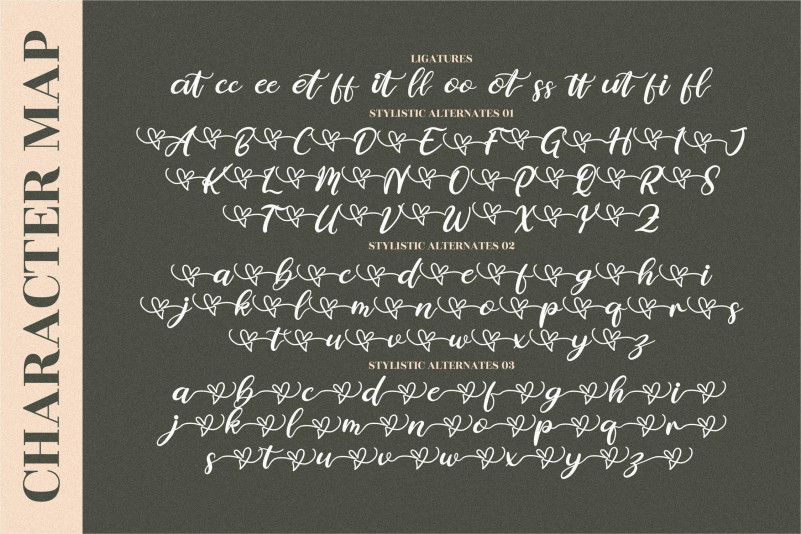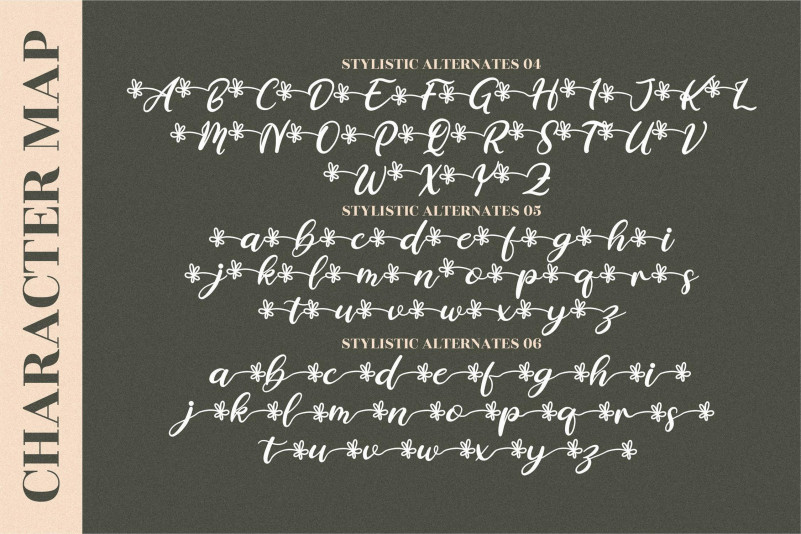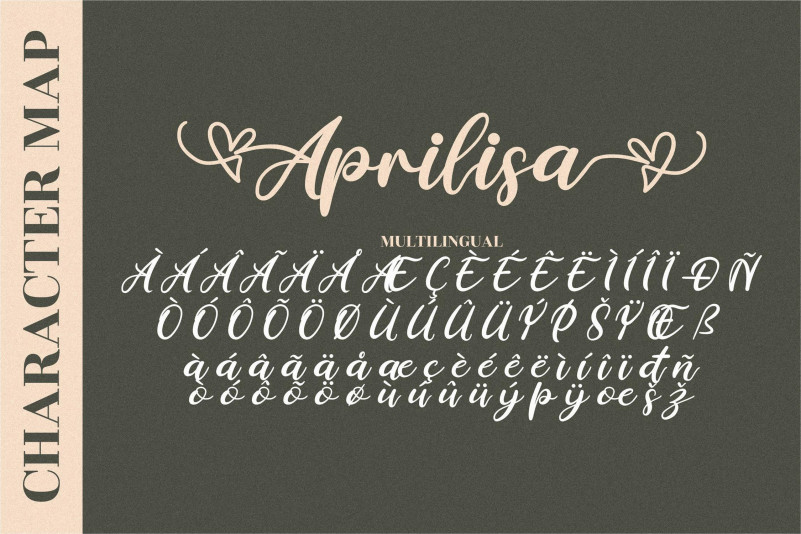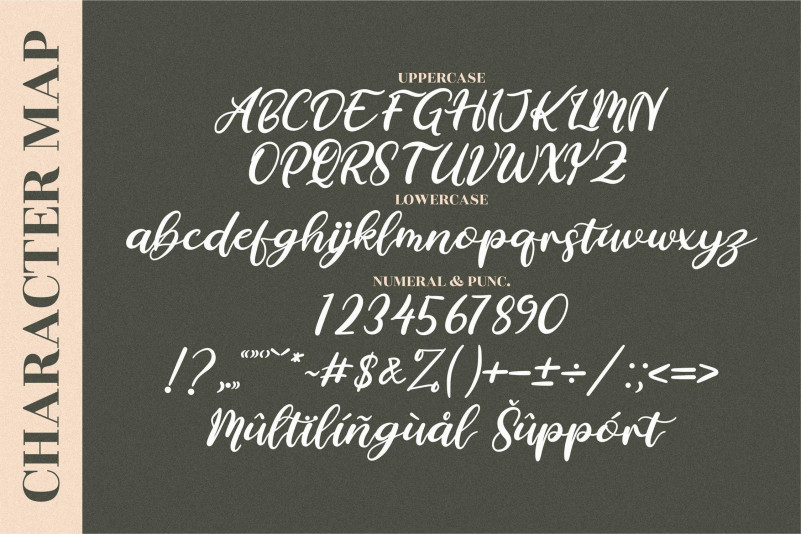
Aprilisa Font
Aprilisa Calligraphy Font
This is a unique and elegant handwritten font. It looks beautiful on a variety of designs requiring a personalized style, such as wedding invitations, thank you cards, weddings, greeting cards, logos and so on. This font is PUA encoded which means you can access all of the glyphs and swashes with ease!